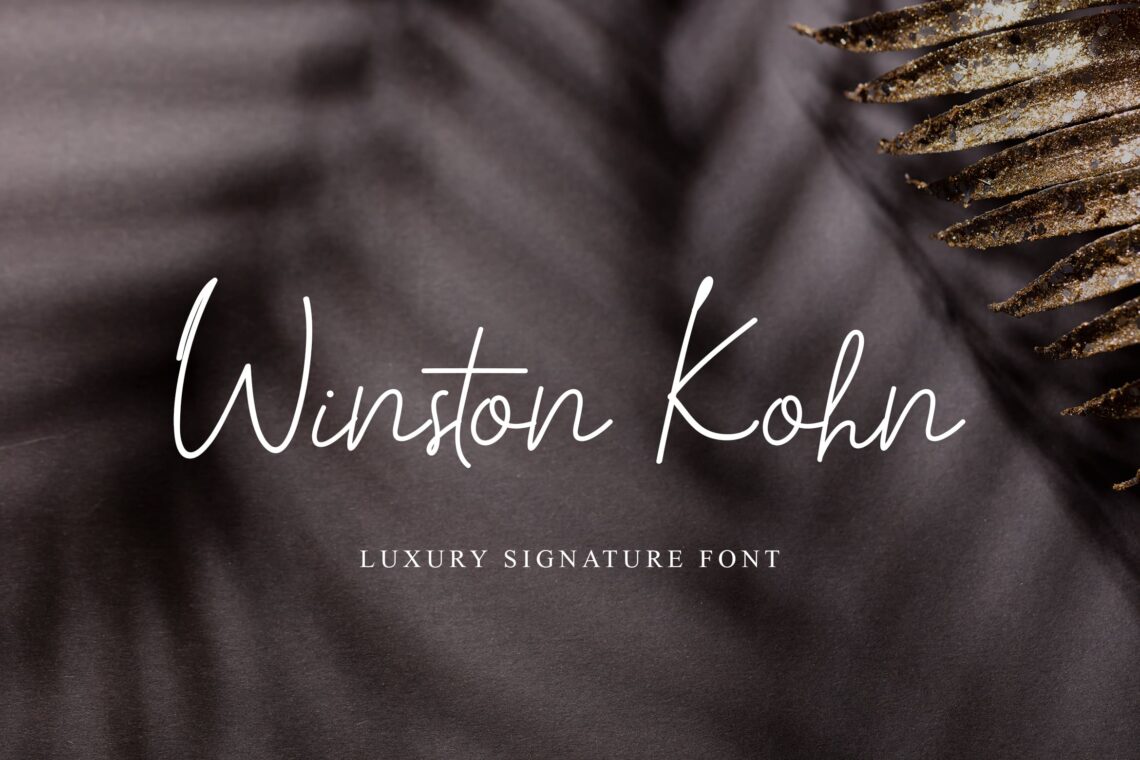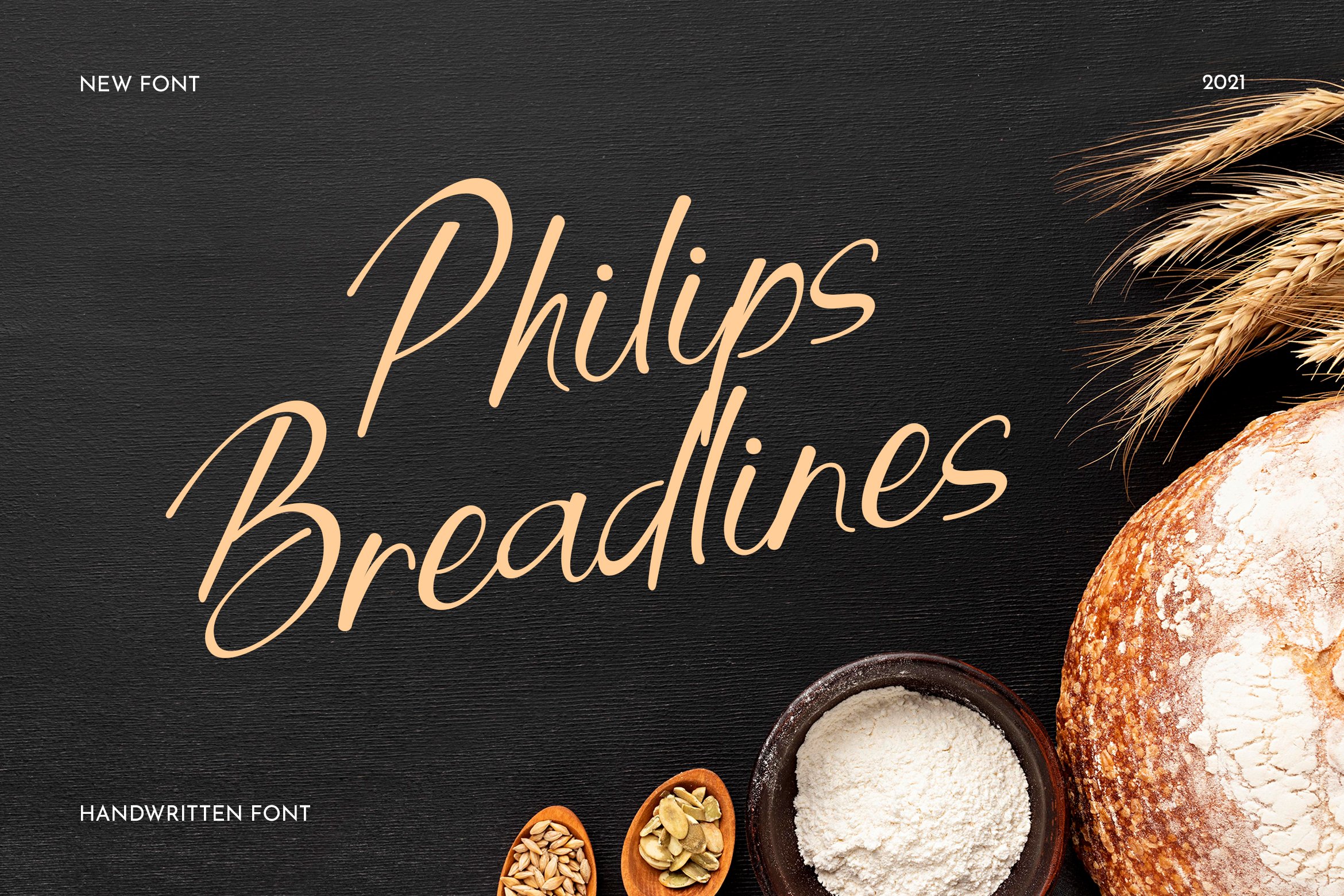
10 Best Calligraphy Fonts
10 best calligraphy fonts include calligraphy font, handwritten font, and script font. Which one is the best one? It depends on your desire and business. You need to need about what are the different types of handwriting fonts. Therefore, to help you make a decision, here are some choices for you.
1. Renita Montes Calligraphy Font
Renita Montes Signature Font
It was made with the intention to be used for your personal branding. But, this works well for many applications. Everything from personal branding, logos, name tag, handwritten quotes, product packaging, merchandise, social media & greeting cards. photography signature, advertising could benefit from this collection of these bold signature fonts. To show everyone if it is yours, brand your product with this font.
2. Rookie Fiesta Script Font
Rookie Fiesta Handwritten Font
Script font always has its own unique side. No matter the goal of using it, it gives a close sensation between the owner and the audience. Therefore, if you want to build a close engagement with your audience, grab this category of the font. Remember to reach the appearance of elegant handwriting, which makes them look like they’ve been drawn using pens or brushes. Just like what you will have after applying this font. Having ready to use the font just like an investment. You can use it in another project. you also could use it and change time to use it. You can use it for posting on social media, arranging a new brand logo, or creating something as the outline. Painted on the shirts or apply to a book cover, this font has multiple uses.
3. Miguel Ramond Script Font
Miguel Ramond Signature Font
It was made with the intention to be used for your personal branding. But, this works well for many applications. Everything from personal branding, logos, name tag, handwritten quotes, product packaging, merchandise, social media & greeting cards. photography signature, advertising could benefit from this collection of these bold signature fonts. However, if you need it as invitations, maybe you should grab a font from calligraphy font. Just for your information, calligraphy fonts are classified under script fonts and they often come with realistic effects such as drips, spots, and blotches. They also work best as a display font.
This is a hand-brushed font made using a real brush and ink to bring an organic feel to your text. The regular and swash variations work in perfect harmony with the alternate characters to help you produce original typographic creations. With delicate strokes and a textured appearance, this brush calligraphy font is perfect for designing beautifully handwritten logos, blog titles, greeting cards, and wedding invitations too. So, whatever your projects are, this font is ready to accompany you.
4. Misert Orida Handwritten Font
Misert Orida Signature Font
This handwritten font looks great for any projects you desire. Giving a casual touch, the font seems perfect for the book cover. Due to their unique, stylistic design, using calligraphic fonts lets you create a more personalized, aesthetically pleasing design. Therefore, it is time to recognize the projects you would like to handle. It gives a sophisticated appearance to your project, so do not skip this font. You could get it at an affordable cost too. Just like an investment, you could have this font for this A project and in the future, you can use it again for the C project. It is very cost-effective!
5. Philips Breadlines Handwritten Font
Philip Breadlines Handwritten font
For personal branding, you need something different than the common typeface. It is to build customers perspective toward your brand. The typeface is perfect for creating stationery and Western-themed designs as well as for branding old-fashioned, traditional businesses like breweries, tailor shops, and antique stores. It is not only for the food business then. If you are curious about the unique side of this font, try to collaborate with it. However, sometimes you need help. In this case, UI Creative would like to help you to limit your stress, and handle anything you cannot handle by yourself since everyone has his own capacity.
6. Butter Cookies
Handwritten font
Butter Cookies Handwritten Font
Something modern is not always good. Depending on your target audience and products, you can use this font to promote something sweet and grab middle young attention. With modern calligraphy, you don’t have to stick to traditional or conventional styles or follow any particular strokes and formations. They will reject uniformity and embrace irregularity and imperfections to create a completely new and unique typeface, providing you with more freedom and creativity in your designs. It is challenging for sure. You have to know the hint to make it fabulous.
7. Bondstone Mintage
Handwritten font
Bondstone Mintahe Handwritten Font
I don’t think to use it for tattoos, but you may try to use it. The tattoo needs something thick and brush style is the answer. However, it is most suitable for something traditional like this beautiful script font is specifically designed for creating attractive logos, titles, labels, and packaging. It also looks great on stationery, books, and magazines. It is because its typical hand style is too handy. Even if you want to use it for the movie titles, make sure only for young movie viewers.
Calligraphy font, handwritten font, and script font are widely used for any project. It is your turn to select the most appropriate font for your projects.